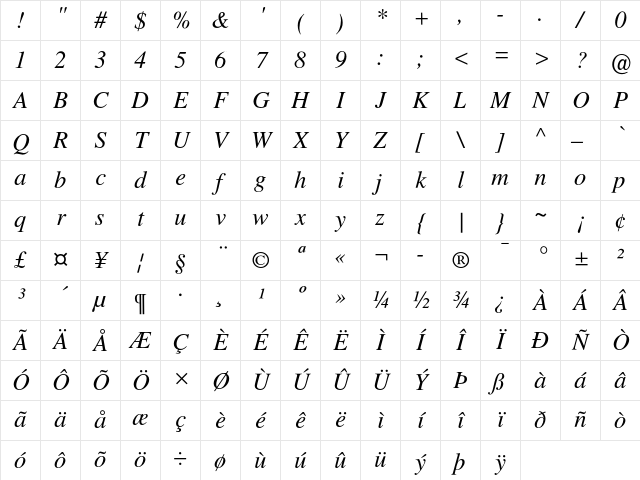
Nimbus Roman No9 L is a composed and adaptable typeface that performs quietly and consistently across a wide range of design contexts. The slanted form adds forward momentum and visual energy.
Pro Tip: Use Nimbus Roman No9 L for emphasis, pull quotes, and subheadings where its slanted energy can add rhythm to the layout.